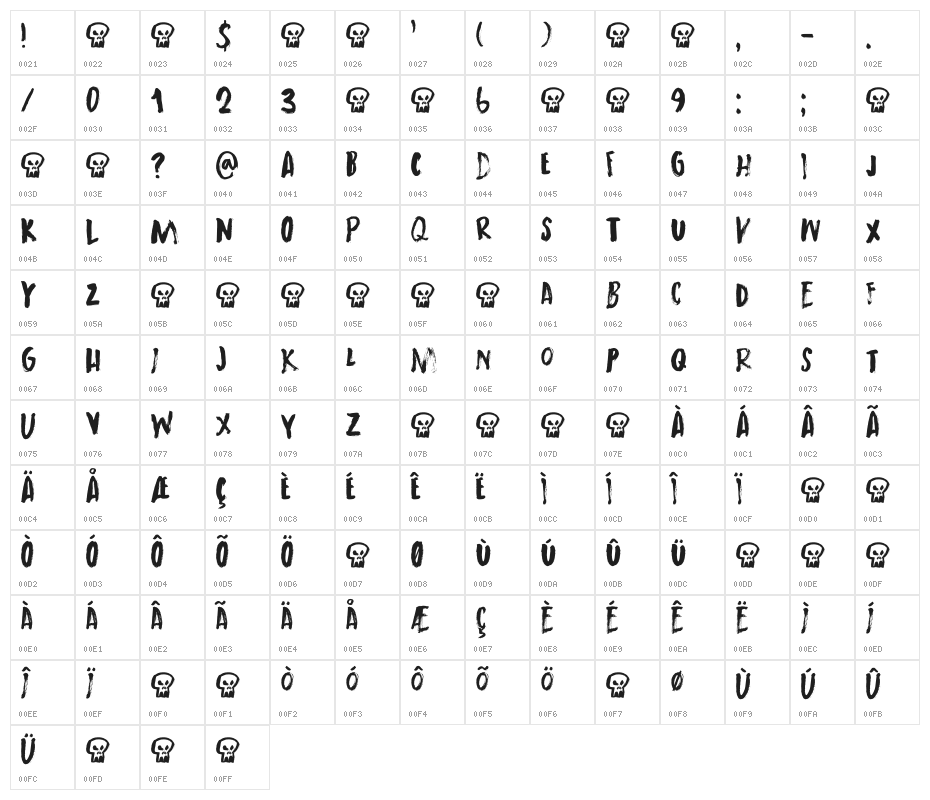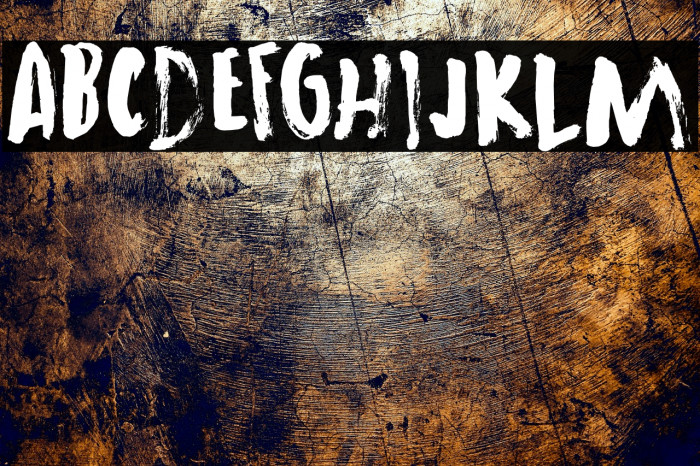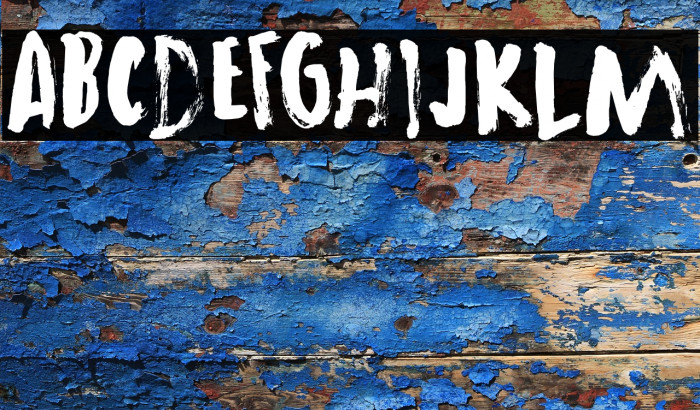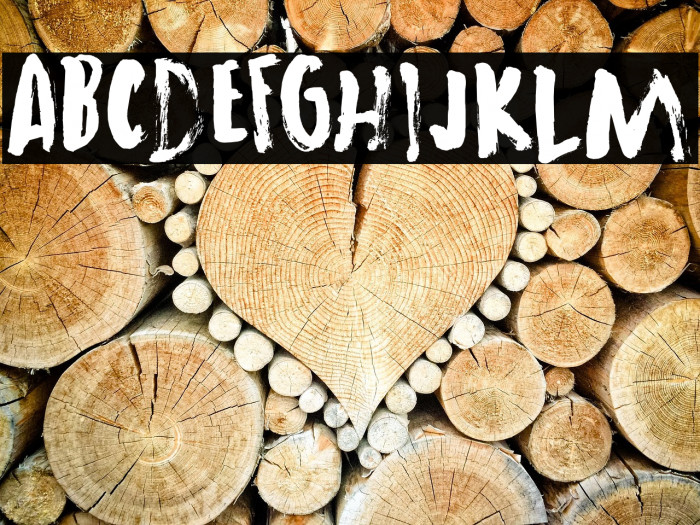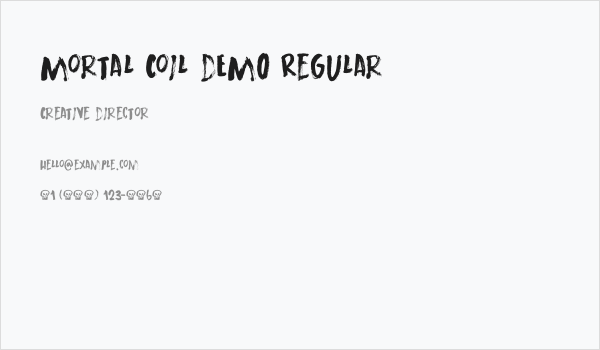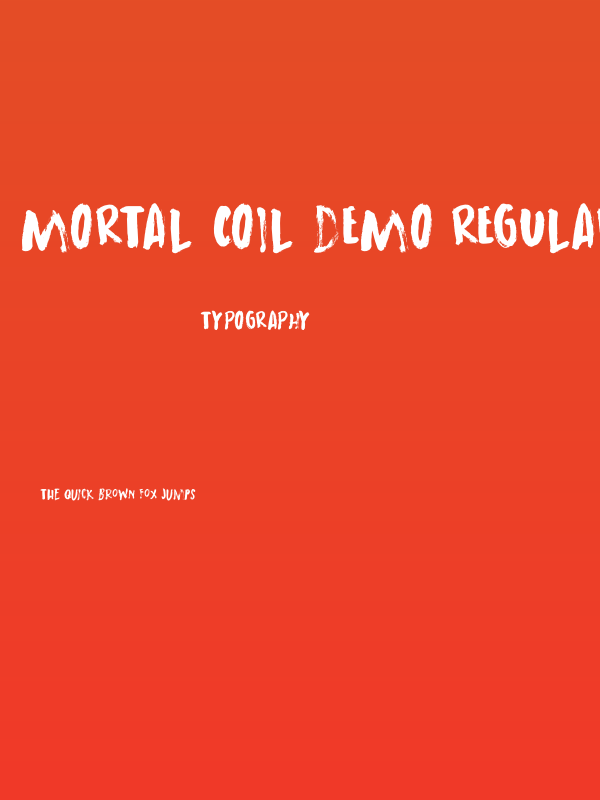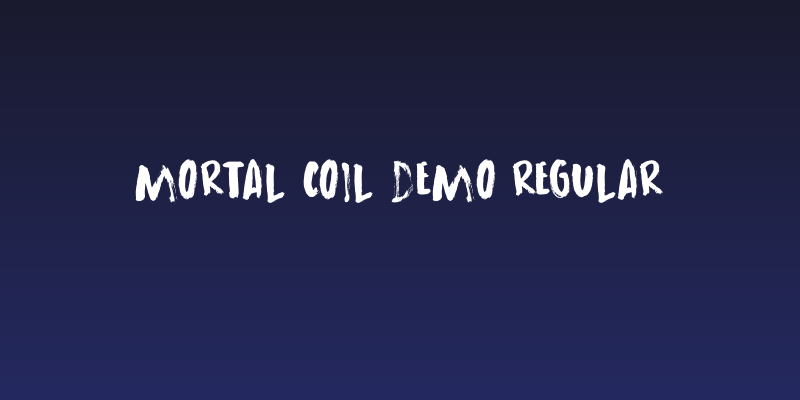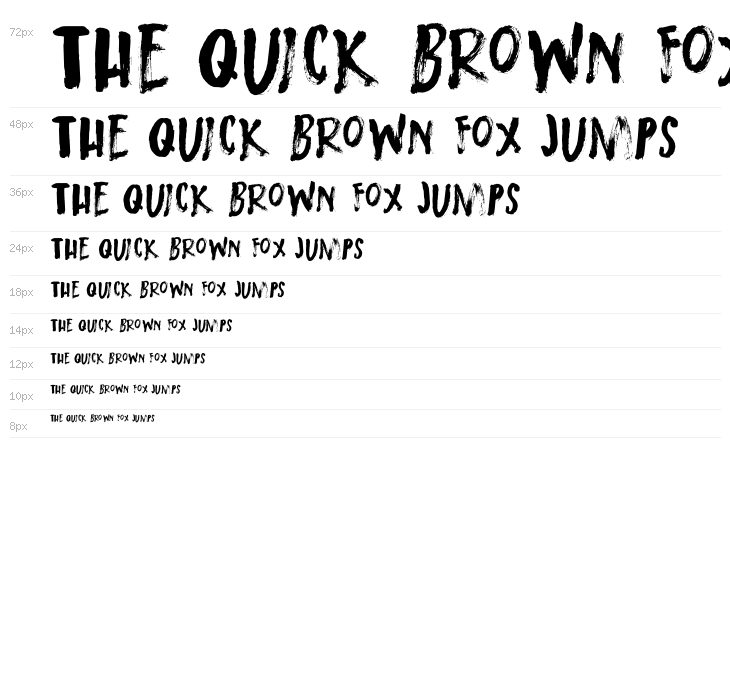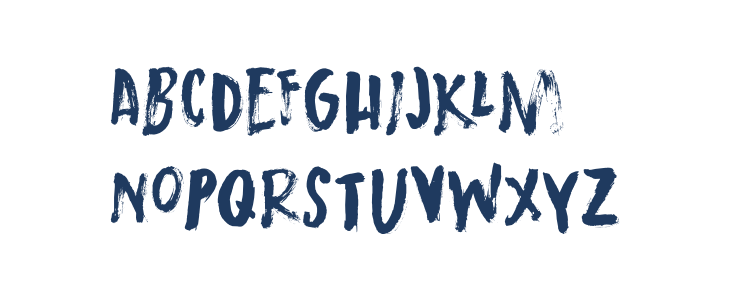
Mortal Coil DEMO Regular Font
Mortal Coil DEMO Regular Description
This font features a bold, brushstroke style that gives it a raw and energetic appearance. The uppercase and lowercase letters are crafted with a hand-painted effect, creating a sense of movement and dynamism. The numbers are uniquely designed with skull motifs, adding a playful yet edgy touch. Special characters maintain the bold, expressive style, making them stand out. The overall aesthetic is both artistic and rebellious, suitable for projects that require a strong visual impact.
| Proposed Projects | Ideal for album covers, posters, streetwear branding, and Halloween-themed designs. |